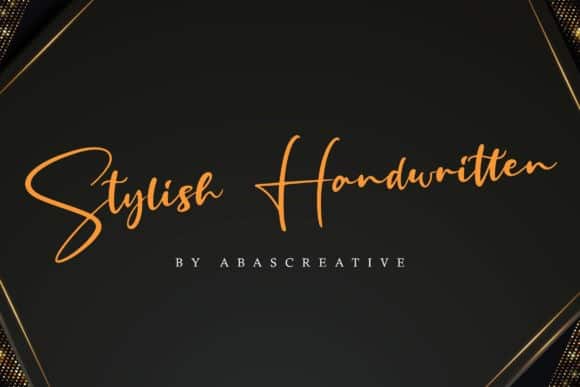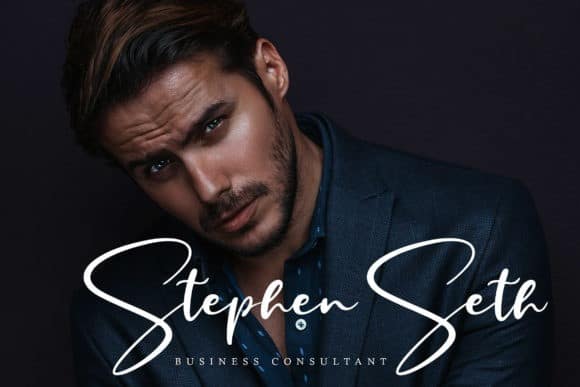
Fritlany Script Font is minimalistic script with beautiful ligature and alternate font. Contemporary handwriting fonts with ligatures and alternative styles ready to add unique look and bloom on your design. It is a script font from the designer AbasCreative.It’s an incredibly distinct, delicate and timeless handwritten font. It looks stunning on wedding invitations, thank you cards, quotes, greeting cards, logos, business cards and every other design which needs a handwritten touch.